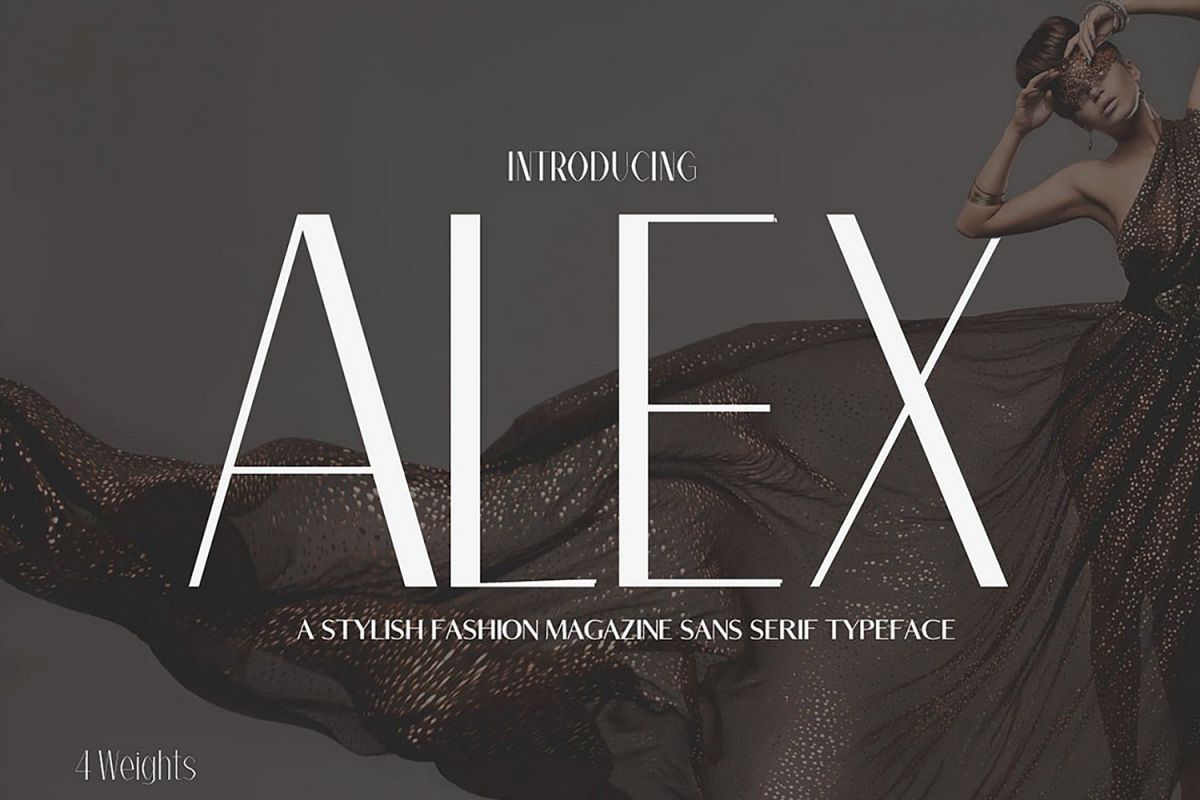
Alex Sans Serif Typeface
Alex is the unique typeface for creating elegant headlines, fashion magazine covers, book covers, templates and creative displays and logo designs. It pairs well with other handwritten, script, serif and sans-serif fonts and features multiple weights.Features
• Uppercase Multilingual Letters
• Bold, Regular, Thin and Light & Italics Weights
Alex Font Features:
• Uppercase Multilingual Letters
• Lowercase Multilingual Letters
• Alternative